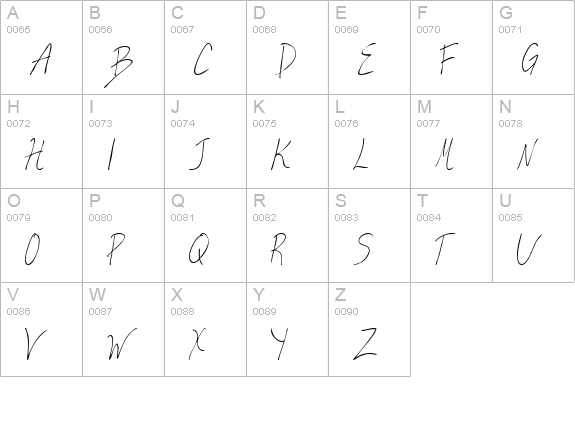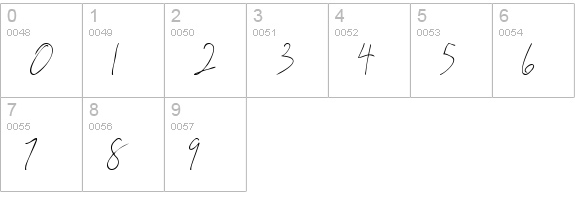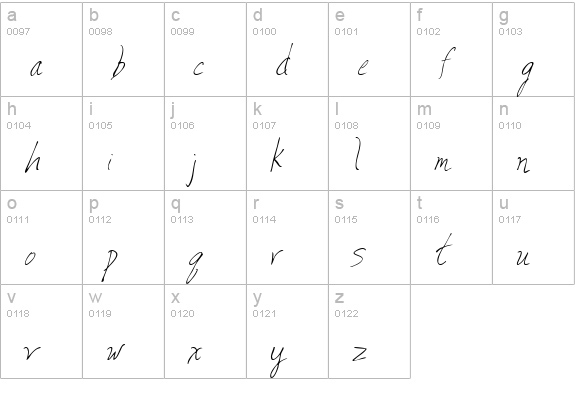
Valia Truelight Font Details
Valia Truelight font is a captivating typeface that effortlessly blends elegance and modernity. With its delicate curves and refined lines, this font exudes a sense of sophistication and grace. It is perfect for adding a touch of refinement to any project, whether it be branding, packaging, or editorial design. What sets Valia Truelight font apart is not just its exquisite design, but also the fact that it is available for free. Yes, you read that right! This stunning font can be downloaded at no cost from FontsMarket.com, making it easily accessible to all designers and creatives. The versatility of Valia Truelight font is truly remarkable. Its clean and legible characters make it ideal for both headings and body text, ensuring readability in any context. The attention to detail in each letterform is evident, creating a harmonious and balanced overall composition. Whether you're looking to create a logo that leaves a lasting impression or designing an eye-catching poster that demands attention, Valia Truelight font is the perfect companion. Its timeless aesthetic and modern appeal make it a go-to choice for designers seeking a font that effortlessly blends classic elegance with contemporary flair. With Valia Truelight font, you can bring your creative visions to life with ease. Its wide range of glyphs and language support allow you to explore various design possibilities and cater to diverse audiences. From fashion to beauty, from luxury to lifestyle, this font adapts seamlessly to any industry or niche. In summary, Valia Truelight font is a truly exceptional typeface that combines elegance, modernity, and the best part – it's free! Download this remarkable font today from FontsMarket.com and elevate your design projects to new heights.